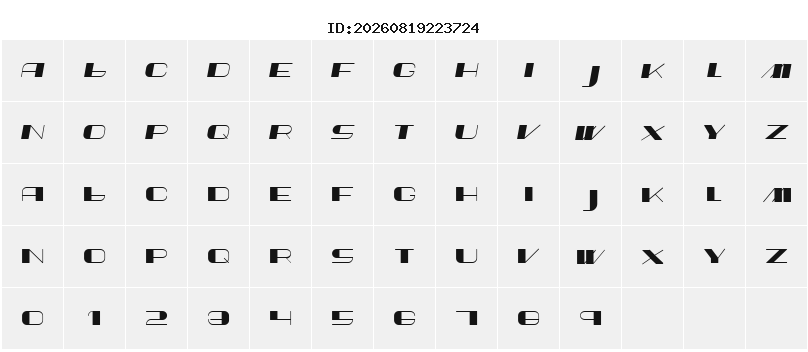
• Font Name: Shandy
• Full Font Name: Shandy
About Shandy.ttf
Shandy.ttf is a modern, elegant sans-serif font designed for ultimate readability and visual harmony. Perfect for branding, headlines, web design, and print materials.